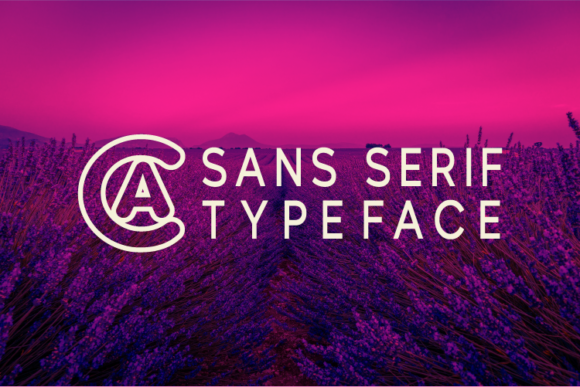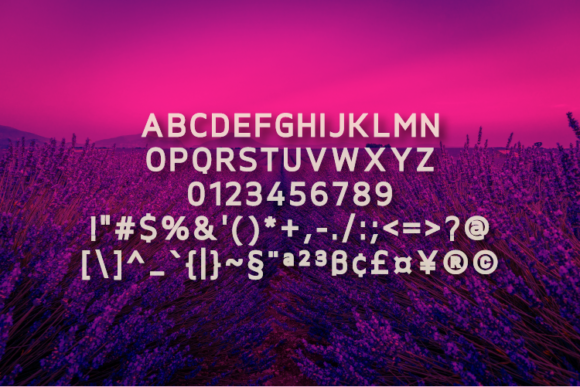
Introducing Heilowent Font: Elevate Your Designs with a Simple and Clean Sans Serif
In the world of design, typography plays a crucial role in conveying messages and capturing the audience’s attention. A well-chosen font can make all the difference in creating visually stunning and effective designs. If you’re a designer or crafter looking to add a touch of simplicity and elegance to your projects, look no further than the Heilowent font. In this article, we’ll explore the features and benefits of Heilowent, and how it can help take your designs to the next level.
What is Heilowent Font?
Heilowent is a simple and clean lettered sans serif font, designed to help you create beautiful and professional-looking designs. Its clean lines, elegant curves, and uncluttered appearance make it an excellent choice for a wide range of projects, from digital graphics to print materials. Whether you’re working on a logo, brochure, website, or social media post, Heilowent is the perfect font to add a touch of sophistication and style.
Key Features of Heilowent Font
- Simple and Clean Design: Heilowent’s sans serif design ensures that your text is easy to read and understand, making it perfect for body text, headings, and titles.
- Elegant and Versatile: Heilowent’s elegant curves and lines make it suitable for a wide range of design projects, from modern and minimalist to traditional and classic.
- Highly Legible: The font’s clear and concise design ensures that your text is easily readable, even at small sizes.
- Easy to Pair: Heilowent pairs well with a variety of fonts, making it easy to create harmonious and visually appealing typography combinations.
Benefits of Using Heilowent Font
So, why choose Heilowent font for your designs? Here are just a few benefits you can expect:
- Stand Out from the Crowd: With Heilowent, you can create unique and eye-catching designs that set you apart from the competition.
- Enhance Readability: Heilowent’s clean and simple design ensures that your text is easy to read, making it perfect for body text and other long-form content.
- Save Time: With Heilowent, you can quickly and easily create professional-looking designs without spending hours searching for the perfect font.
- Increase Versatility: Heilowent’s elegant and versatile design makes it suitable for a wide range of projects, from digital graphics to print materials.
How to Use Heilowent Font in Your Designs
Using Heilowent font in your designs is easy. Here are a few tips to get you started:
- Pair it with Other Fonts: Experiment with pairing Heilowent with other fonts to create unique and visually appealing typography combinations.
- Use it for Headings and Titles: Heilowent’s elegant design makes it perfect for headings and titles, adding a touch of sophistication to your designs.
- Experiment with Colors and Textures: Try pairing Heilowent with different colors and textures to add depth and interest to your designs.
In conclusion, Heilowent font is a simple and clean lettered sans serif font that can elevate your designs and help you create visually stunning and effective projects. With its elegant design, high legibility, and versatility, Heilowent is the perfect choice for designers and crafters looking to add a touch of sophistication to their work. So why wait? Add Heilowent to your design toolkit today and start creating beautiful and professional-looking designs that stand out from the crowd!